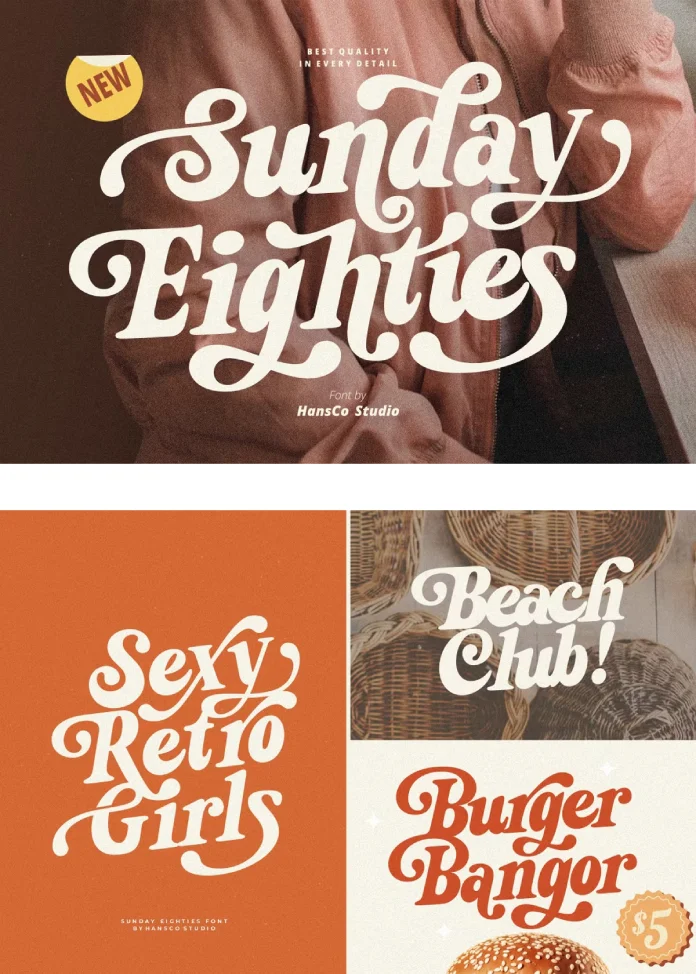
With the Sunday Eighties Font, You Are Riding the Retro Wave Back to Awesome Design.
Remember that feeling? The one you get when you see something instantly familiar, yet excitingly fresh? It often comes wrapped in the bold confidence and vibrant energy of the 1980s. Now, imagine capturing that exact essence in your design projects. That’s precisely where the Sunday Eighties font, crafted by the talented folks at HansCo Studio, enters the picture. This isn’t just another typeface; it’s a time machine cleverly disguised as a simple, bold, retro vintage serif font. Think classic vibes, but built for today’s creative needs. Let’s explore why the Sunday Eighties font is becoming a go-to choice for designers seeking that perfect nostalgic punch.
You might be wondering, what makes a font truly capture an era? It’s more than just mimicking old styles. It’s about understanding the feeling. The Sunday Eighties font does this beautifully. Its core design is rooted in a serif style, giving it that touch of classic readability. However, HansCo Studio infused it with a boldness and simplicity that screams retro confidence. It avoids being overly complex, ensuring your message remains clear and impactful. This balance makes it incredibly versatile. It feels vintage, yes, but without the dust. It’s clean, sharp, and ready for modern applications.
What Defines the Sunday Eighties Font Aesthetic?
At its heart, the Sunday Eighties font is a display font. This means it’s designed to grab attention, perfect for elements that need to stand out. Its bold weight gives it immediate presence. The vintage serif style provides a subtle nod to traditional typography, grounding the design. Yet, the overall impression is undeniably retro, specifically evoking that clean, confident 80s feel you might associate with movie titles, early video games, or iconic branding from the decade. HansCo Studio didn’t just copy; they interpreted. They captured the spirit – that blend of nostalgia and optimistic energy – and distilled it into usable letterforms. Isn’t that what great font design is all about? Finding that unique character?
Furthermore, its simplicity is a key strength. In a design landscape sometimes cluttered with overly ornate options, the straightforward nature of the Sunday Eighties font is refreshing. It delivers its retro message without ambiguity. This clarity makes it incredibly effective for headlines, logos, and any place where immediate impact is crucial. Think about how easily it could communicate a brand’s personality – perhaps playful, perhaps nostalgic, definitely confident.
Beyond the Basics: Exploring the Font’s Full Toolkit
A great font offers more than just A-to-Z. The Sunday Eighties font comes fully equipped for serious design work. You get the complete package:
- Uppercase Letters: Bold and commanding, perfect for making a statement.
- Lowercase Letters: Consistent in style, offering readability for shorter text blocks.
- Numbers: Styled to match the retro aesthetic perfectly.
- Punctuation: All the essential marks needed for proper typesetting.
- Multi-lingual Support: This is huge! It broadens the font’s usability across different languages and regions, making your designs more accessible globally.
Having this comprehensive character set means you won’t hit frustrating roadblocks mid-project. Everything you need is right there, ensuring consistency and saving you time searching for complementary symbols or characters. It’s built for professionals who need reliable tools.
The Secret Weapon: Swashes, Alternates, and Ligatures in the Sunday Eighties Font
Here’s where the Sunday Eighties font truly starts to show off its personality. Beyond the standard characters, HansCo Studio included additional alternative swash character fonts. What does this mean for you? It means options.
- Swashes: These are those fancy, often decorative strokes added to letters, usually at the beginning or end of words. They add flair and a custom touch, making your text feel unique and hand-crafted. Imagine a logo where the final letter extends in a stylish swoop – that’s the power of a swash.
- Alternates: These are different versions of specific letters. Maybe you want a slightly different ‘a’ or a unique ‘t’? Alternates provide variations, allowing you to fine-tune the look and feel of your text, avoiding repetition and adding visual interest.
- Ligatures: These are special character combinations where two or more letters are joined into a single glyph. Common examples include ‘fi’ or ‘fl’. They improve readability and add typographic sophistication.
To really unlock these extras, you’ll want to use design software that supports OpenType features. Programs like Adobe Illustrator, Photoshop, or InDesign have Glyphs panels that let you easily see and select all these wonderful variations. This capability transforms the Sunday Eighties font from a simple typeface into a flexible design system, allowing you to create truly customized and amazing results. Have you explored using glyph panels before? They really open up a font’s potential.
Putting the Sunday Eighties Font to Work: Where Does It Shine?
Okay, you’re intrigued. You see the potential. But where specifically can you use the Sunday Eighties font to make the biggest impact? Its versatility is one of its strongest assets. Consider these applications: